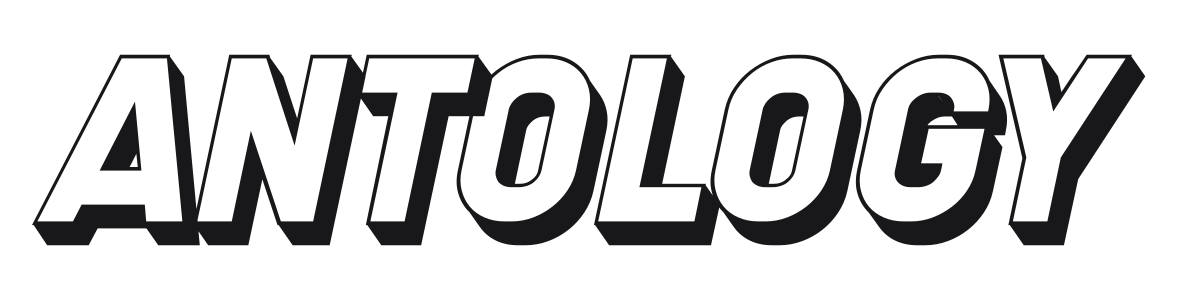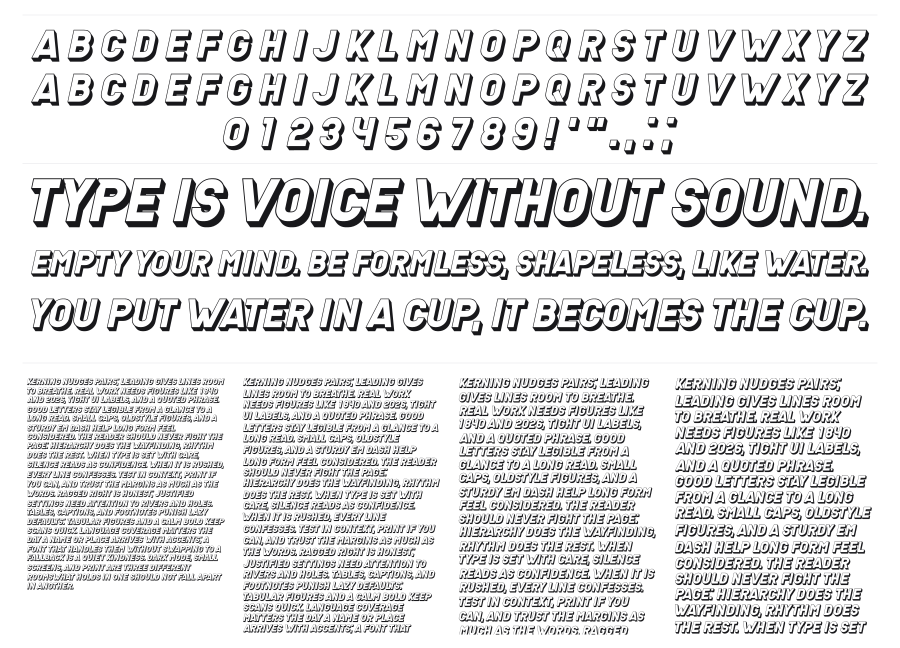
Antology
Antology is a bold condensed italic display font built around a layered 3D comic-book effect, combining a white inline stroke with a heavy drop shadow. The result lands somewhere between vintage superhero lettering and 1970s action movie titles. It commands attention at large sizes and carries a strong retro energy without feeling dusty.